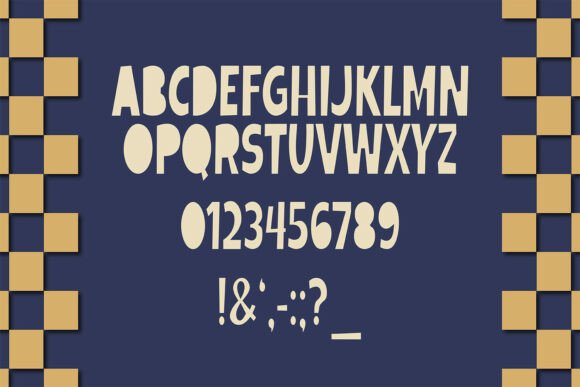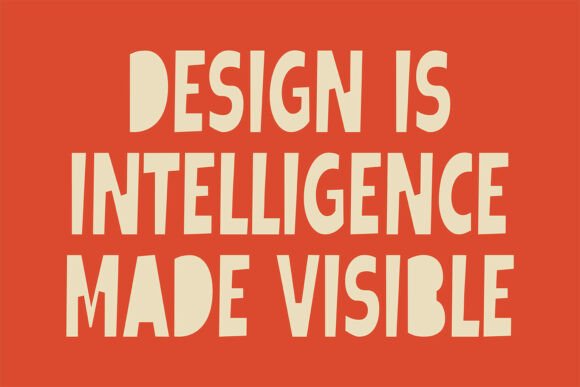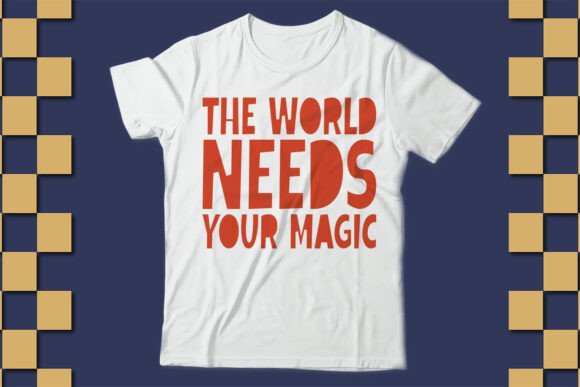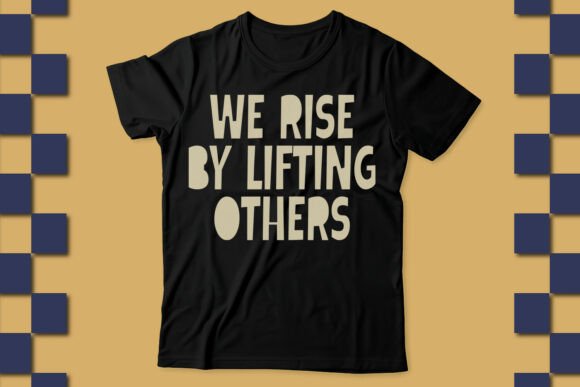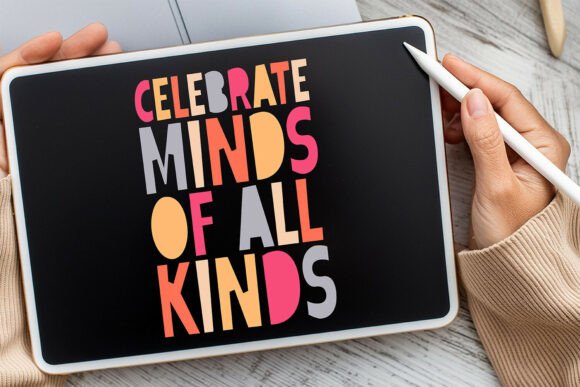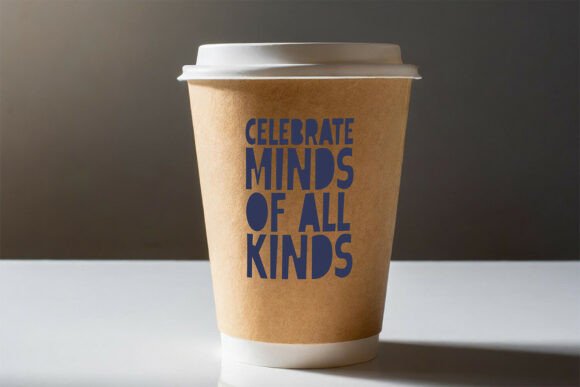
Introducing Graphion Font: Elevate Your Designs with a Bold Modern Display Font
In the world of design, typography plays a crucial role in conveying messages, expressing creativity, and capturing attention. A well-chosen font can elevate your project from ordinary to extraordinary. If you’re on the hunt for a font that exudes modernity, playfulness, and creativity, look no further than Graphion Font. Designed to make your titles stand out, Graphion is a bold modern display font that brings a fresh perspective to the world of typography.
What Makes Graphion Font Stand Out?
Graphion Font is characterized by its strong shapes and unique character design, which bring a contemporary yet creative touch to any project. Its bold and geometric details add a playful twist, making it perfect for designers and crafters who want to add a modern flair to their work. Whether you’re designing posters, merchandise, branding materials, packaging, or social media content, Graphion Font is the perfect choice.
Key Features of Graphion Font
- Bold and Modern Design: Graphion Font boasts a bold and modern design that is sure to grab attention.
- Playful Geometric Details: The font’s geometric details add a playful touch, making it perfect for creative projects.
- Unique Character Design: Each character is uniquely designed to bring a fresh perspective to your typography.
- Contemporary yet Creative: Graphion Font strikes the perfect balance between modernity and creativity.
- Versatile: Suitable for a wide range of applications, including posters, merchandise, branding, packaging, social media, and more.
Use Cases for Graphion Font
Graphion Font is a versatile font that can be used in various design projects. Here are some use cases to get you started:
- Posters and Flyers: Create eye-catching posters and flyers that grab attention with Graphion Font.
- Merchandise: Add a modern touch to your merchandise, such as t-shirts, mugs, and tote bags.
- Branding and Packaging: Use Graphion Font to create a bold and memorable brand identity.
- Social Media: Elevate your social media content with Graphion Font and make your posts stand out.
Tips for Using Graphion Font
To get the most out of Graphion Font, here are some tips to keep in mind:
- Experiment with Sizes: Graphion Font looks great in large sizes, but it can also be used in smaller sizes to add a touch of modernity.
- Play with Colors: The font’s bold design makes it perfect for use with bright and bold colors.
- Mix and Match: Combine Graphion Font with other fonts to create a unique and creative typography.
In conclusion, Graphion Font is a bold modern display font that is perfect for designers and crafters who want to add a touch of modernity and creativity to their work. Its strong shapes, unique character design, and playful geometric details make it a versatile font that can be used in a wide range of applications. Whether you’re designing posters, merchandise, branding materials, or social media content, Graphion Font is sure to elevate your designs and make them stand out.